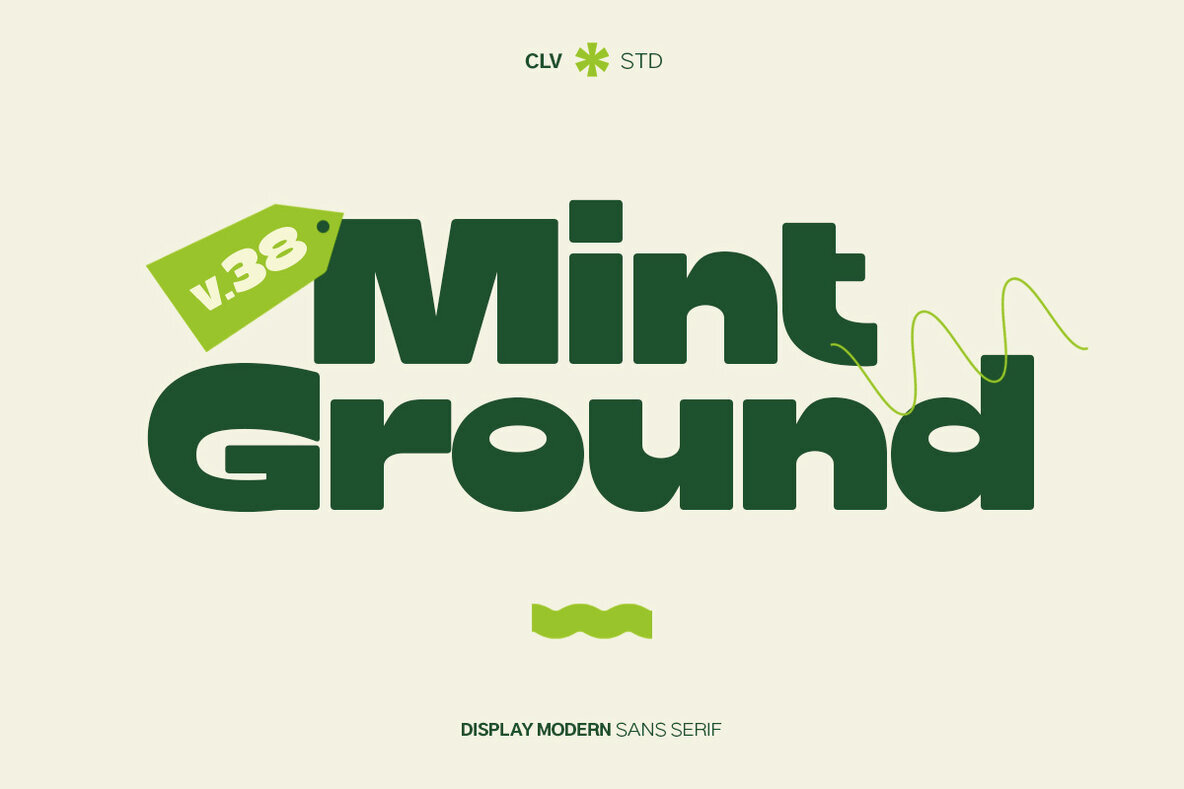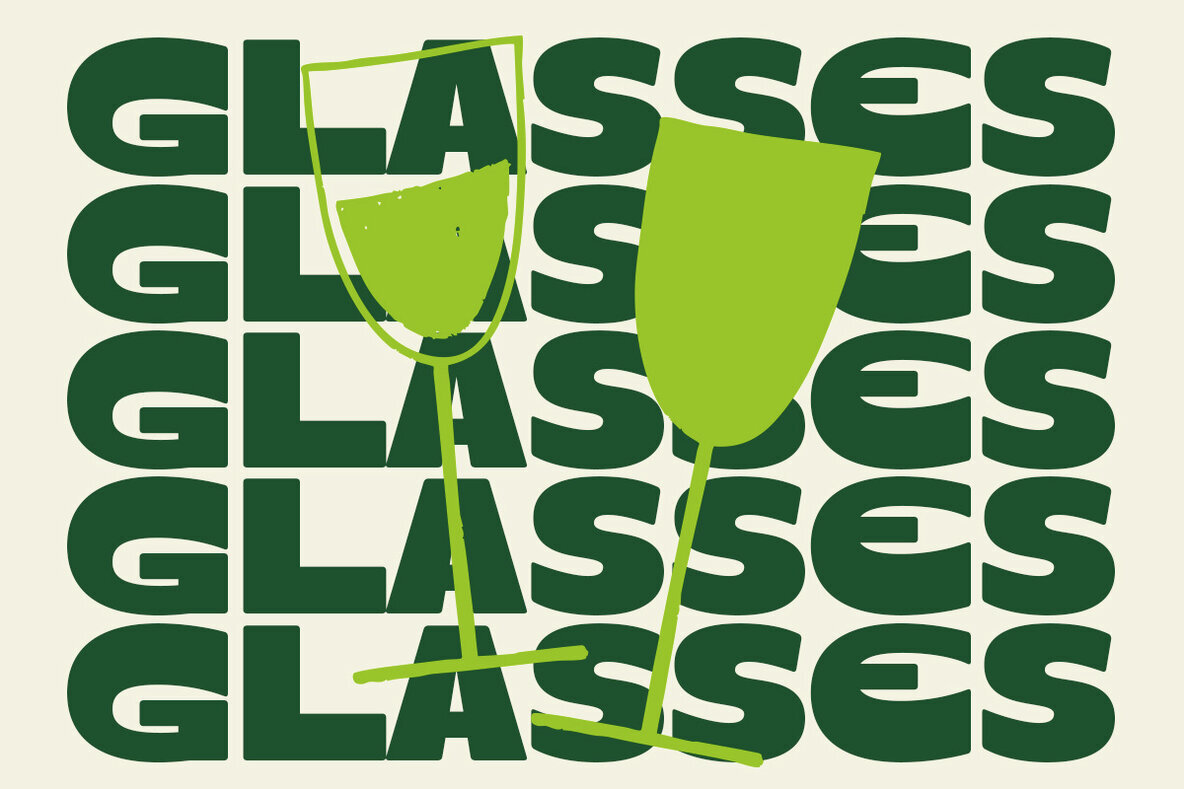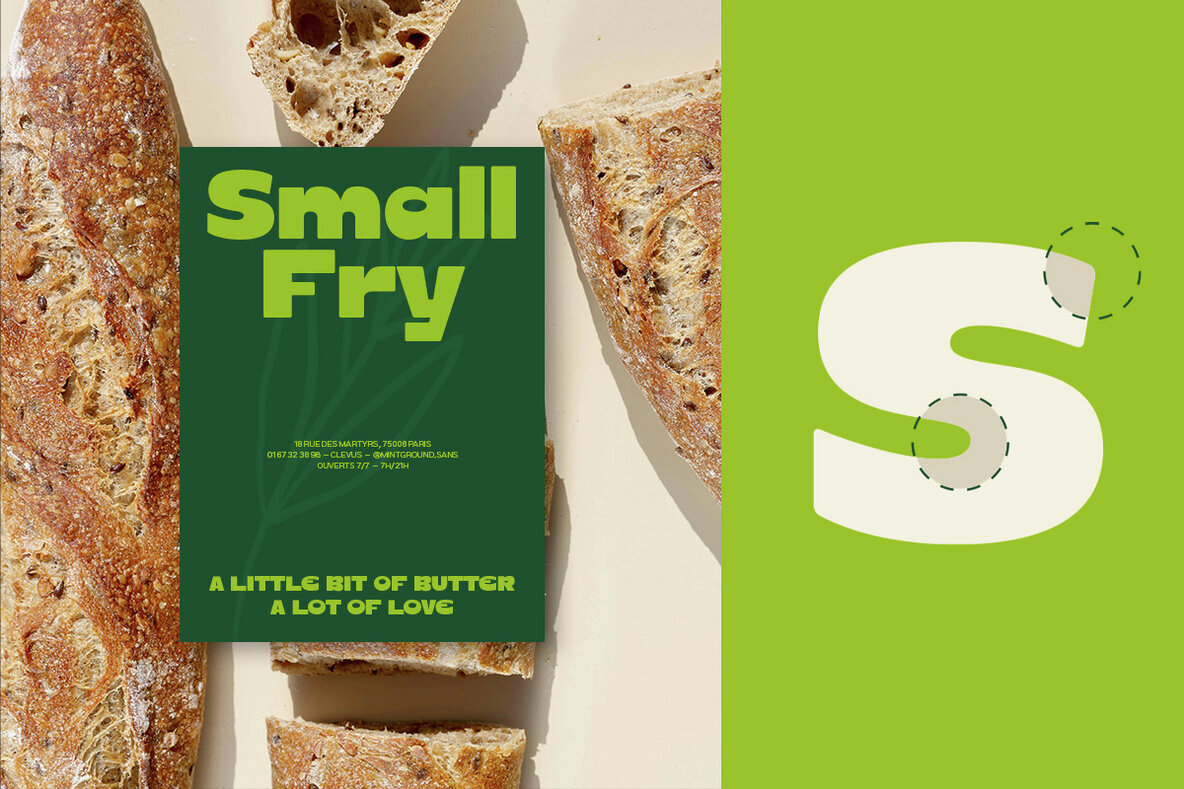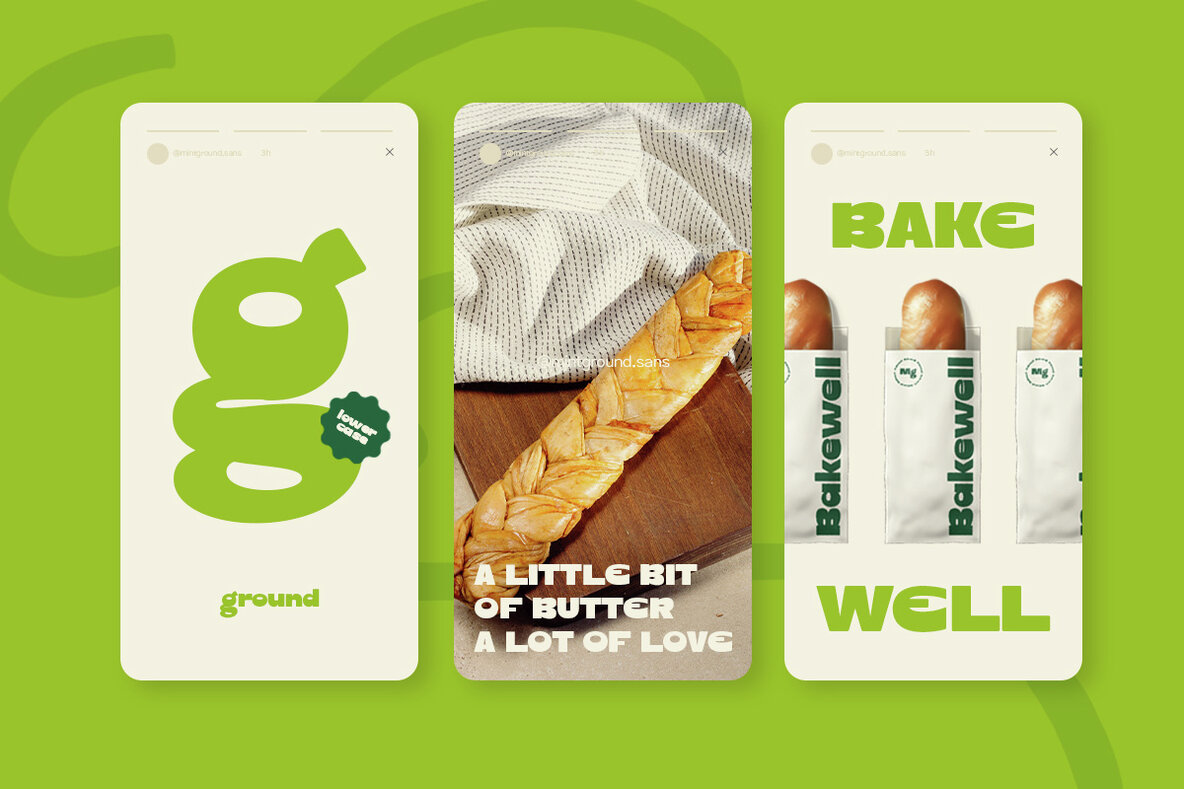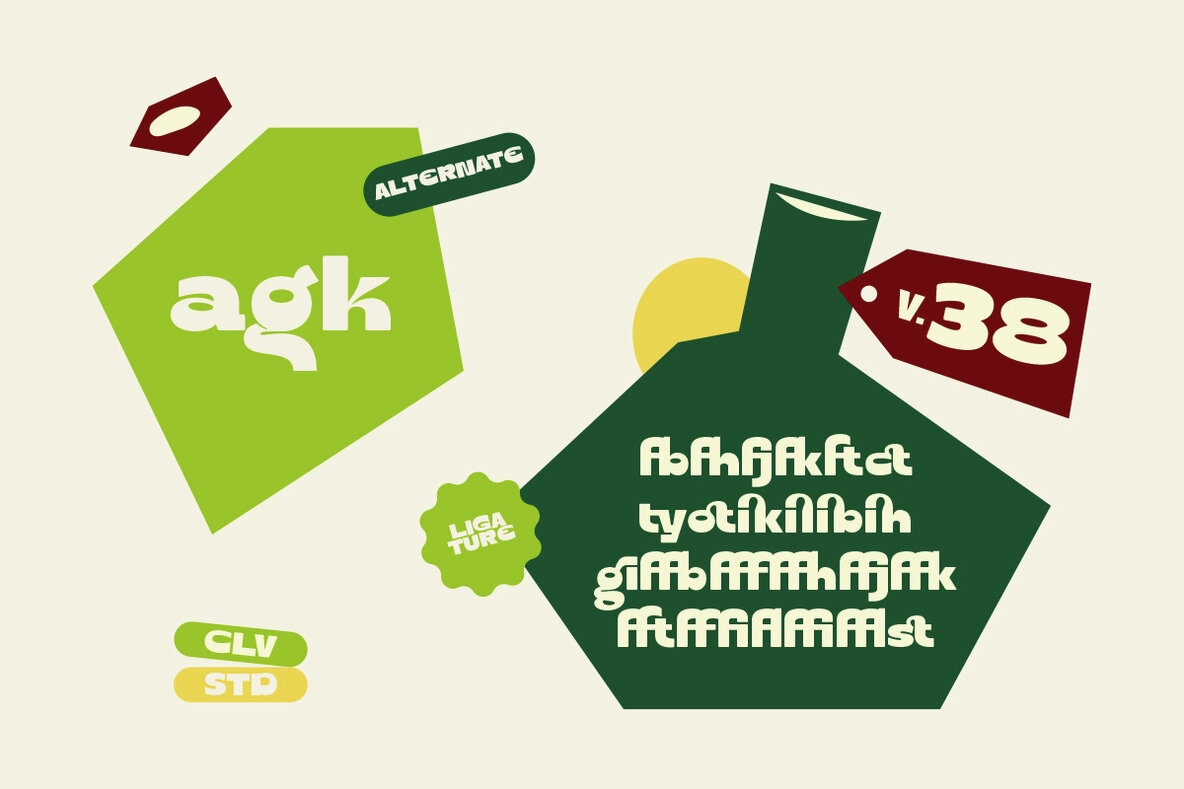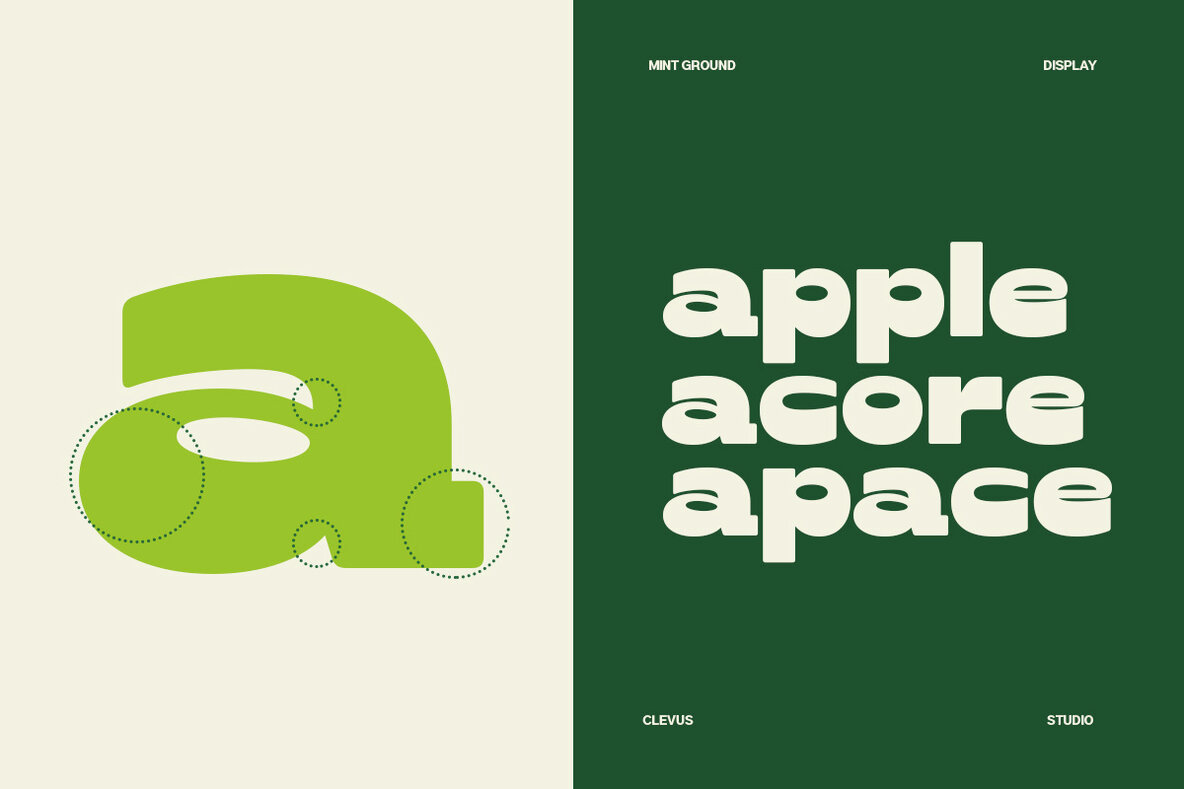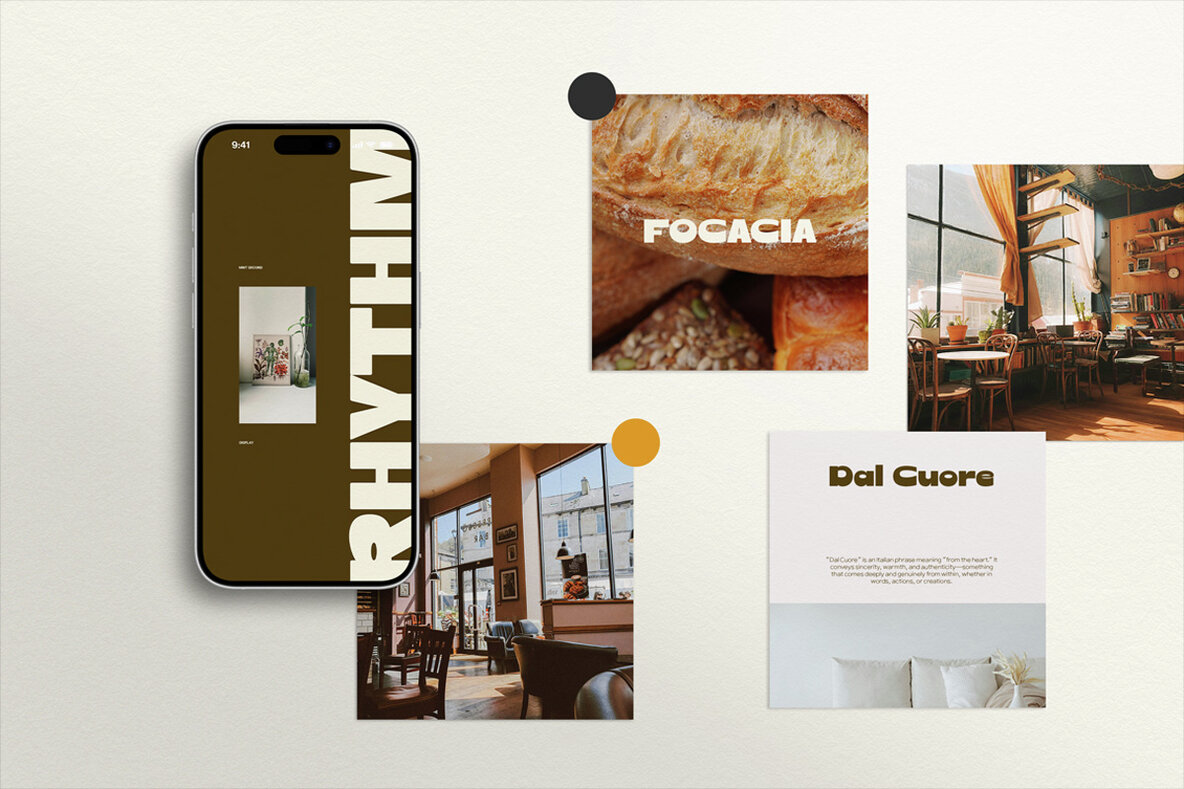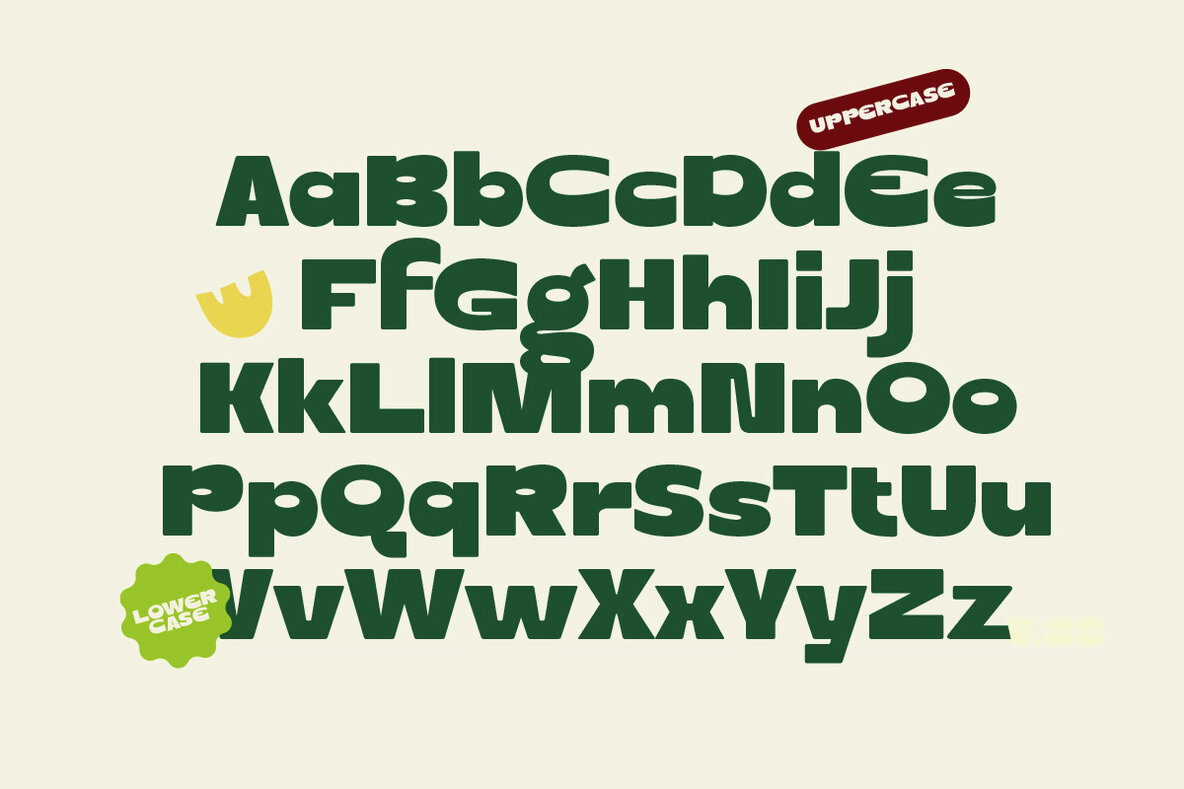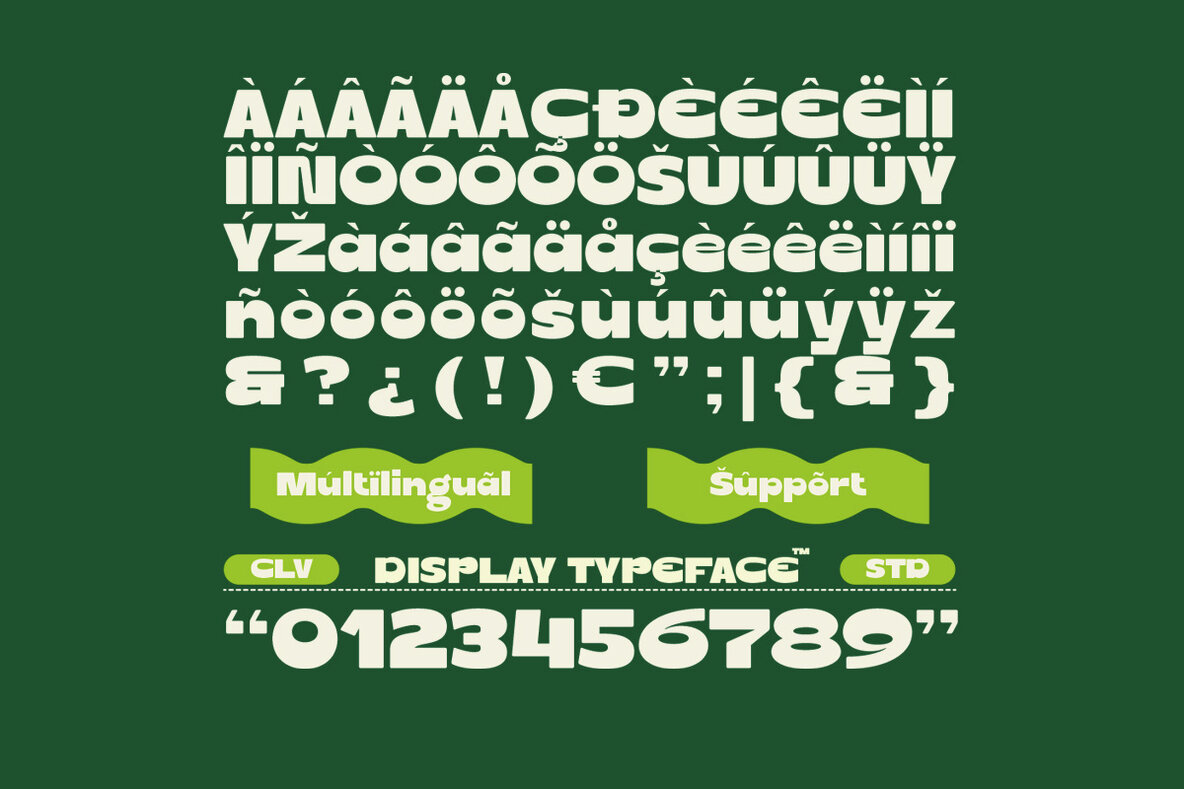
Mint Ground Font
Mint Ground Bold
Mint Ground Display presents itself with a unique blend of boldness and charm—perfect for those seeking to infuse personality into their projects. This font, with its rounded corners and approachable design, tends to invite admiration rather than command attention. Mint Ground is your go-to typeface for projects needing a touch of modernity and friendliness without the need for special software. Its playful aesthetic, coupled with robust language support, makes it a versatile choice for both design veterans and novices. Elevate your design portfolio today with Mint Ground!Mint Ground: A Playful Modern Sans Serif Typeface